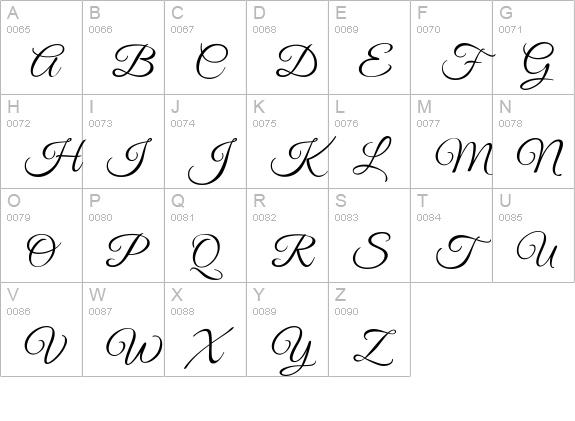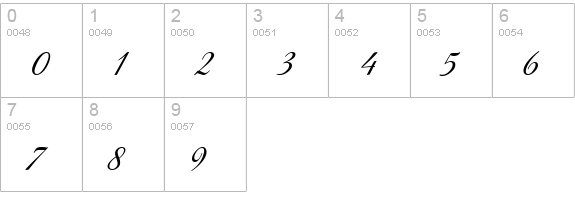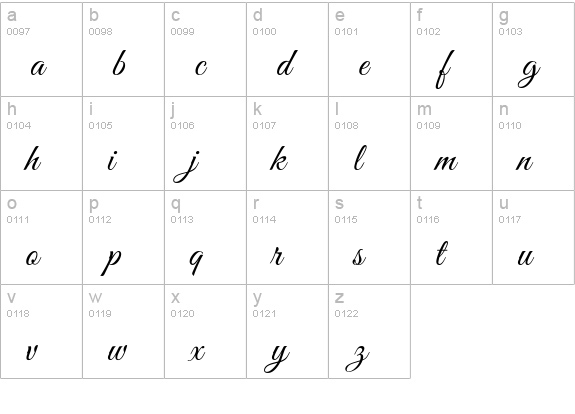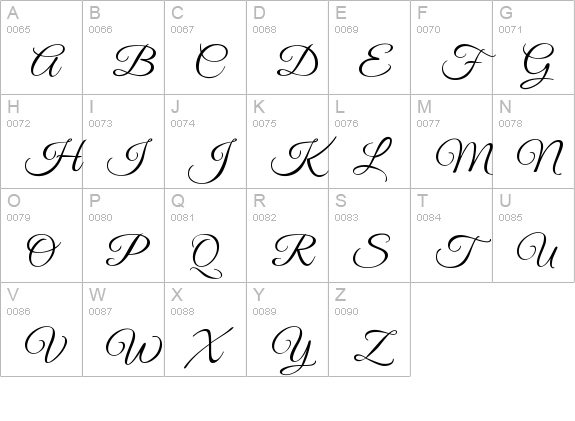
GoodVibrationsROB Script Font Details
GoodVibrationsROB Script font is a beautifully crafted typeface that exudes elegance and charm. Its flowing, handwritten style is perfect for adding a touch of sophistication to any design project. The font features smooth curves and intricate details that make it stand out from the crowd. What's even better is that GoodVibrationsROB Script font is completely free to download. You can easily access this stunning typeface at FontsMarket.com, where you can enjoy the convenience of a quick and hassle-free download process. Whether you're working on a personal project or a professional design, this font will elevate your work and leave a lasting impression. With its timeless appeal and versatile design, GoodVibrationsROB Script font is a must-have addition to any designer's toolkit. Download it today and let your creativity shine with this exquisite typeface.